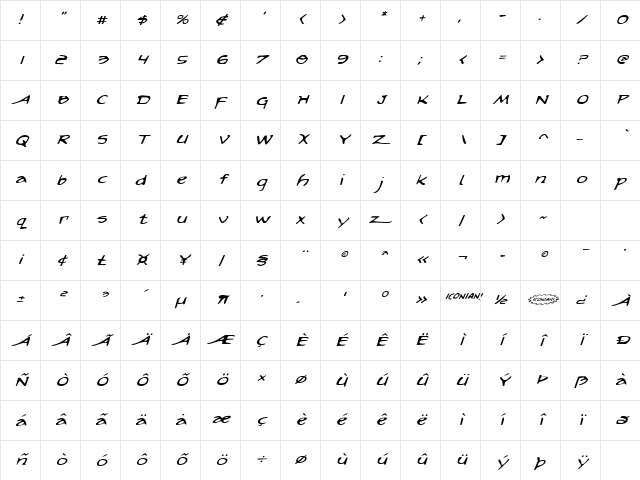
Complete Arilon Expanded Italic glyph index. Displaying only characters natively supported by Arilon Expanded Italic font.
Arilon is a composed and adaptable typeface that performs quietly and consistently across a wide range of design contexts. The slanted form adds forward momentum and visual energy.